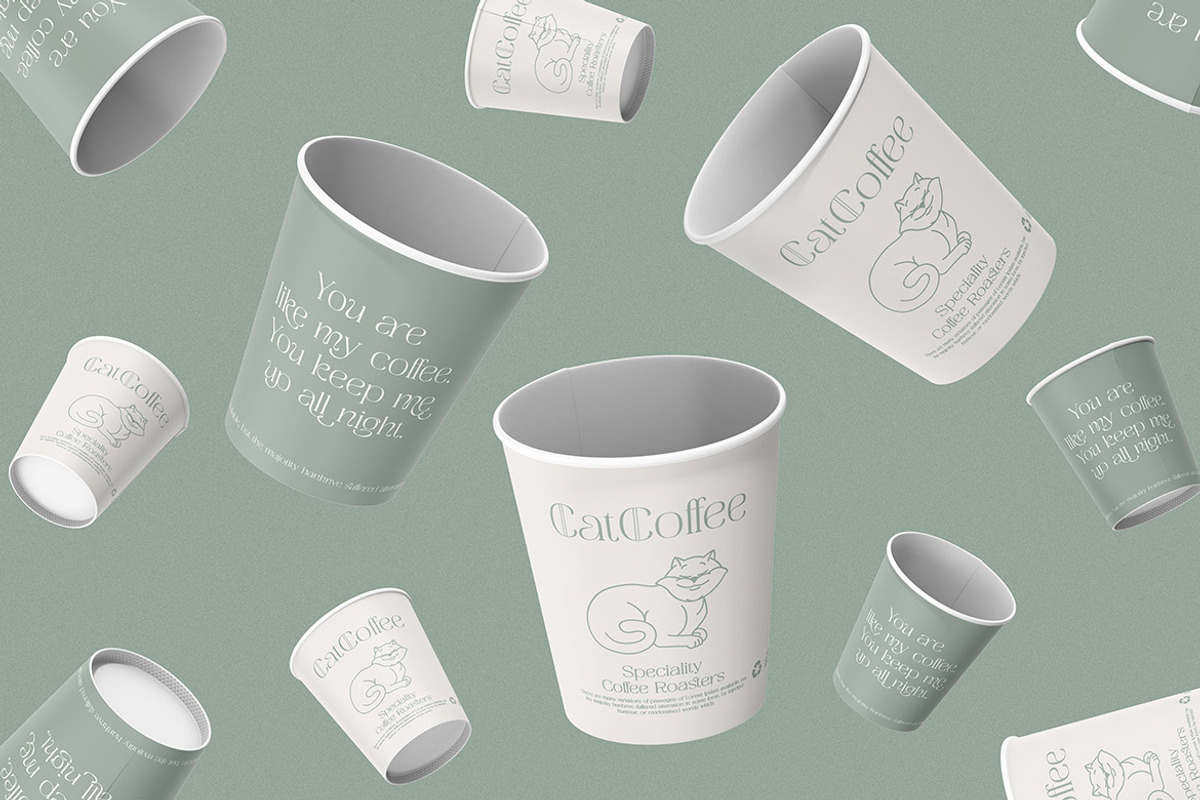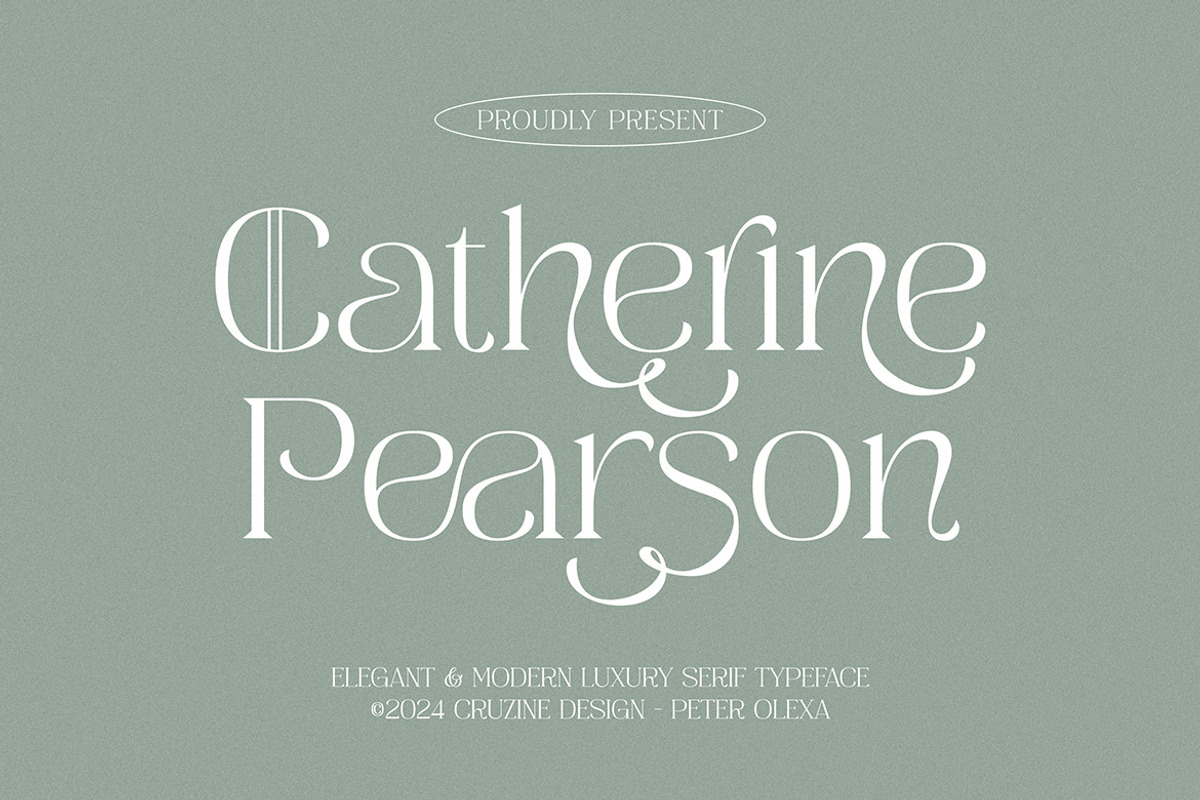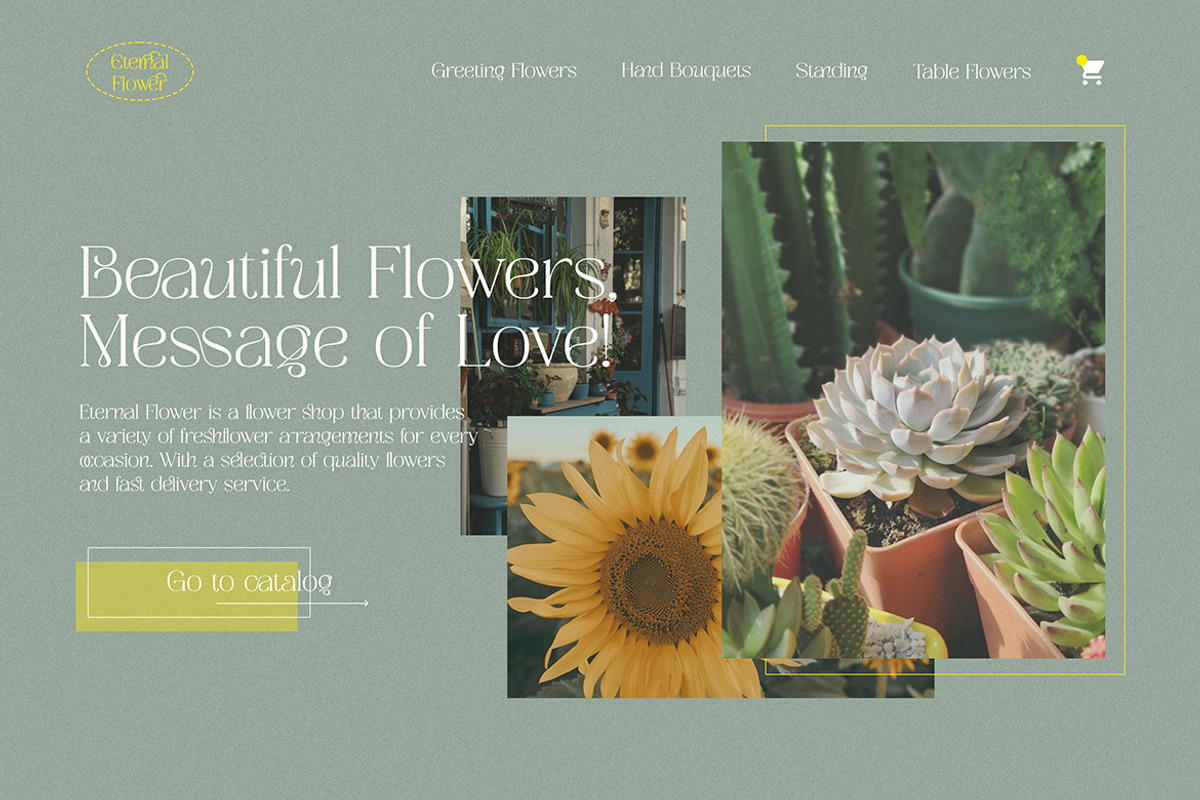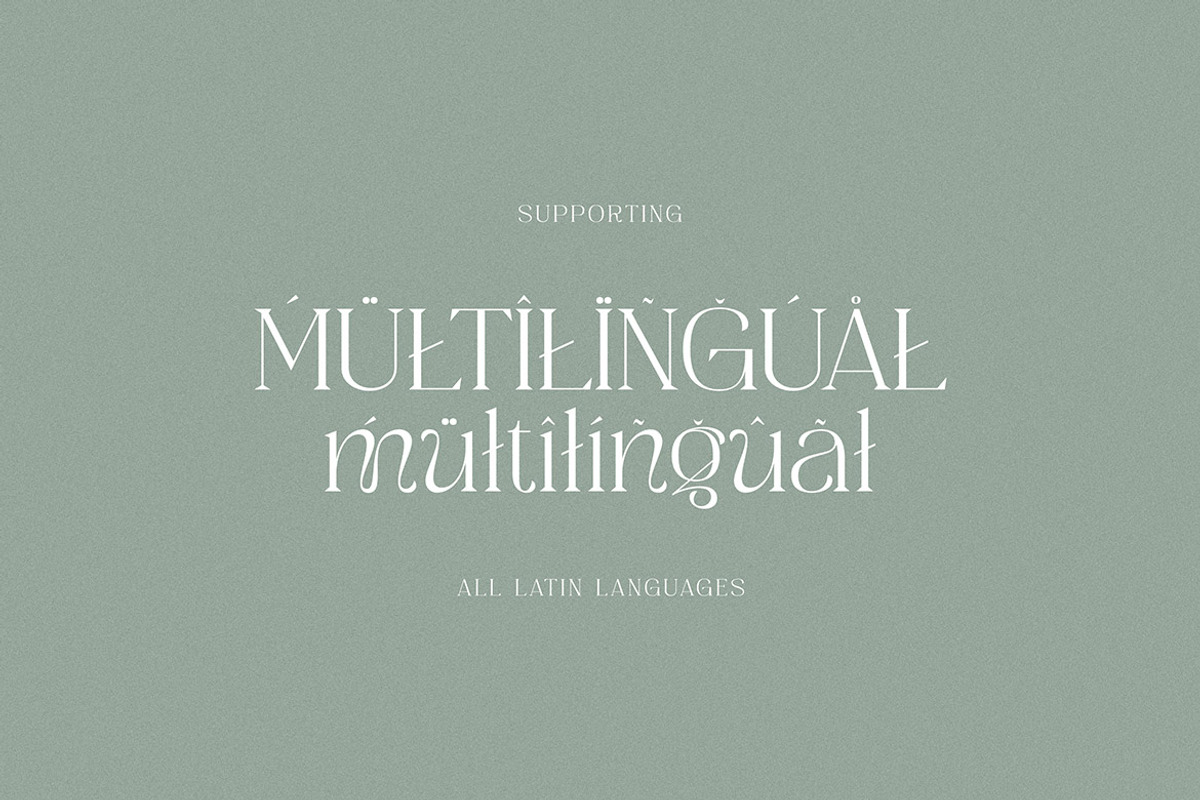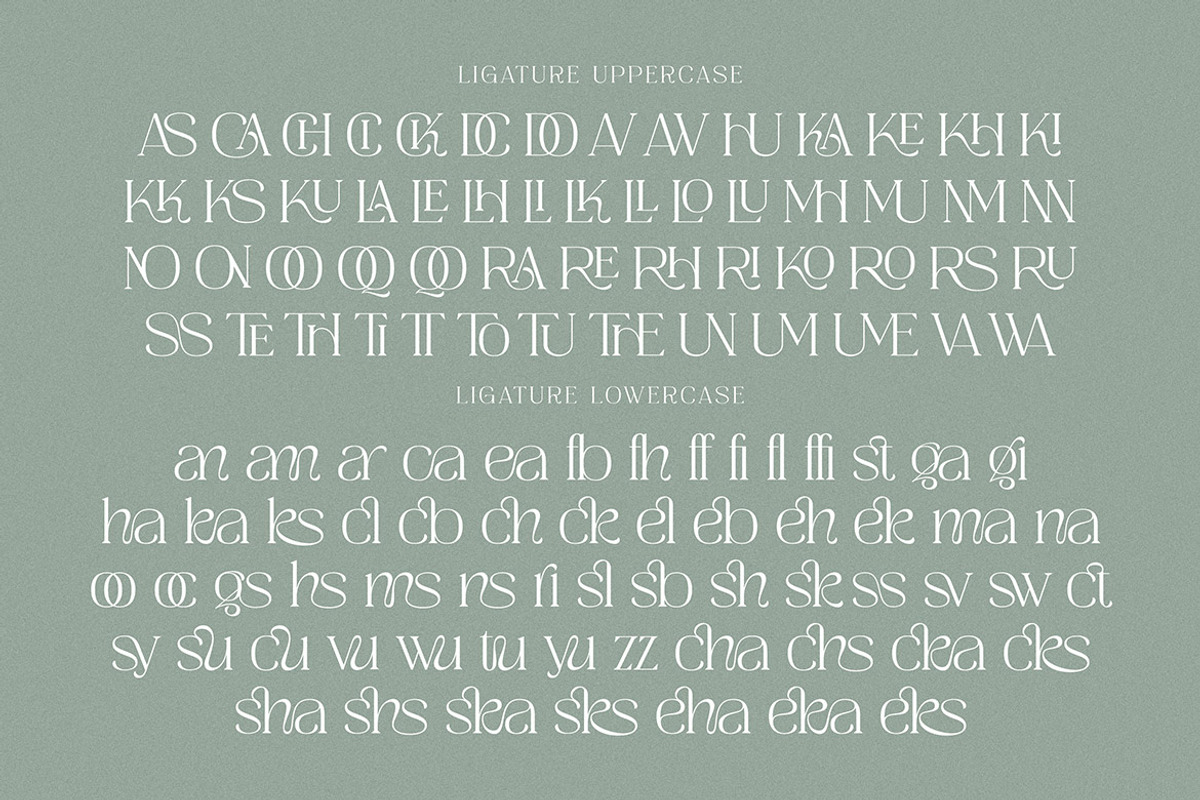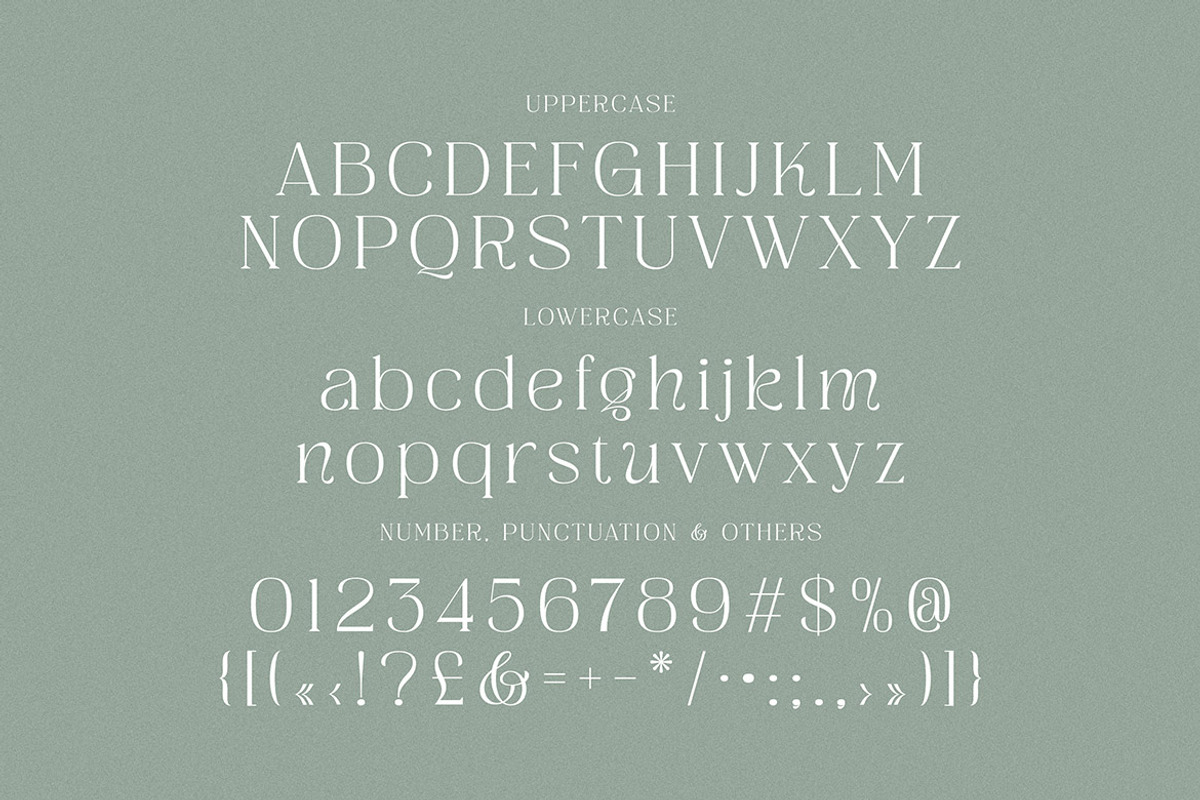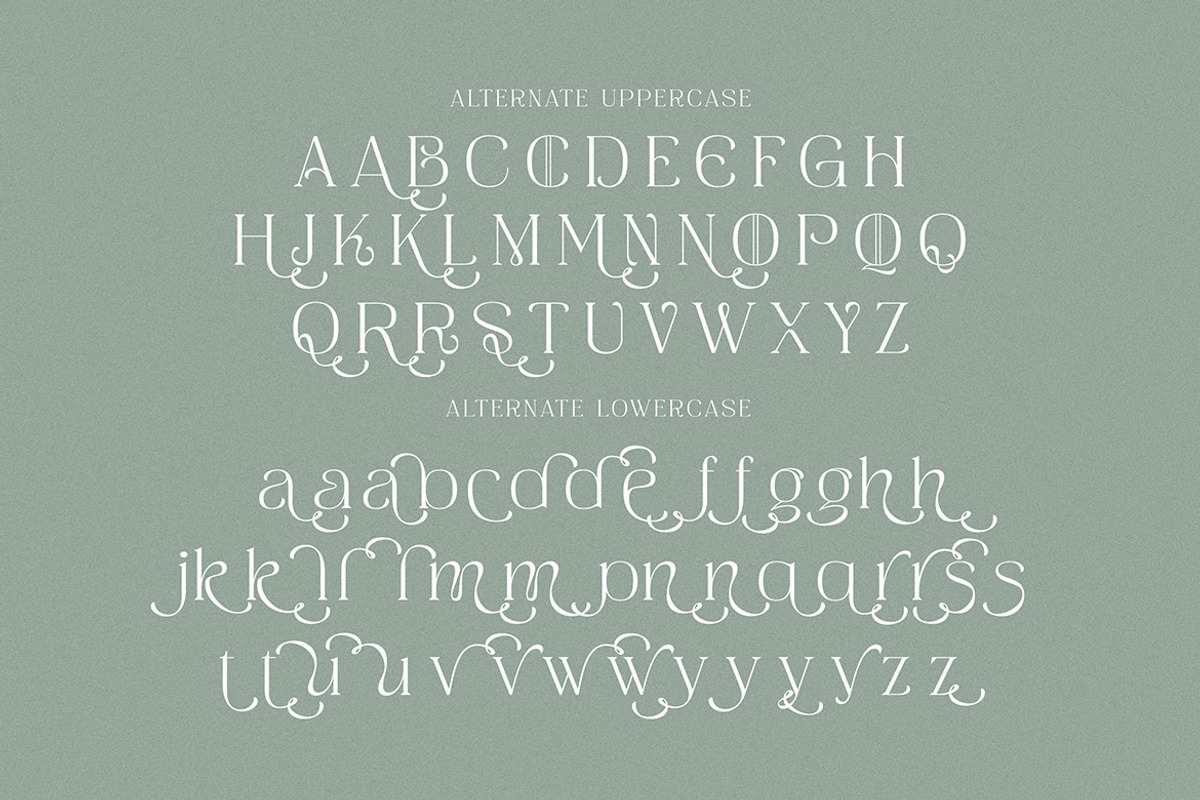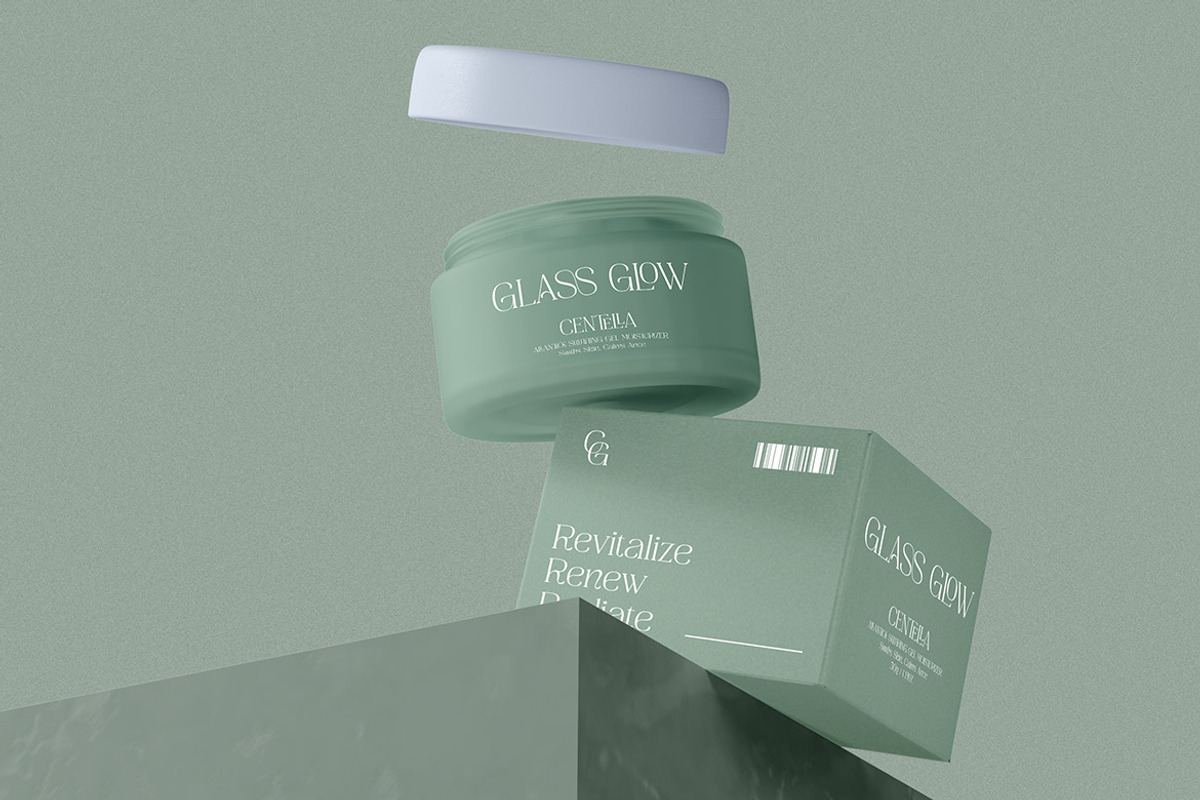
Catherine Pearson
Trendy, elegant, luxury, creative, sharp & modern style serif font for your new fancy projects. Stylish, romantic and classic style on Catherine Pearson font will be great for any modern or classy branding project. Lot of alternates and ligatures will help you to create unique and original logo design or website header! Enjoy :)
- Alternate characters & lot of ligatures
- Great for modern branding projects!